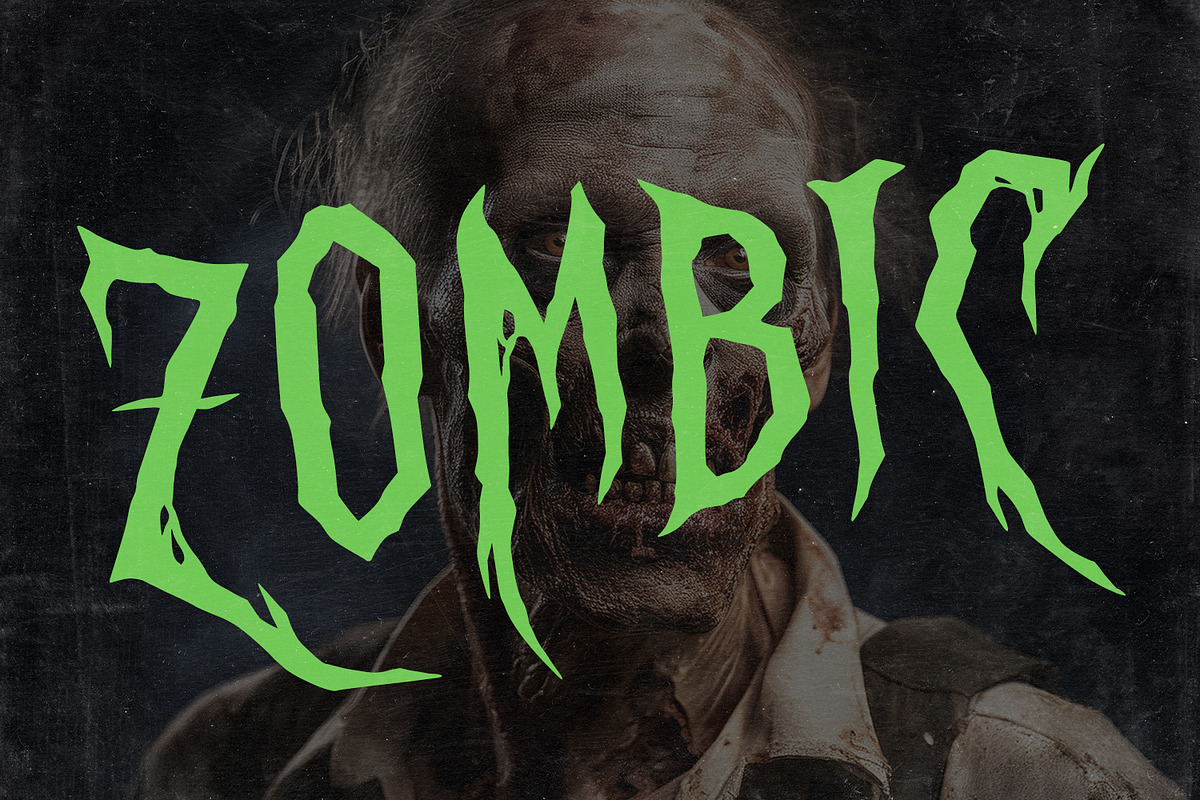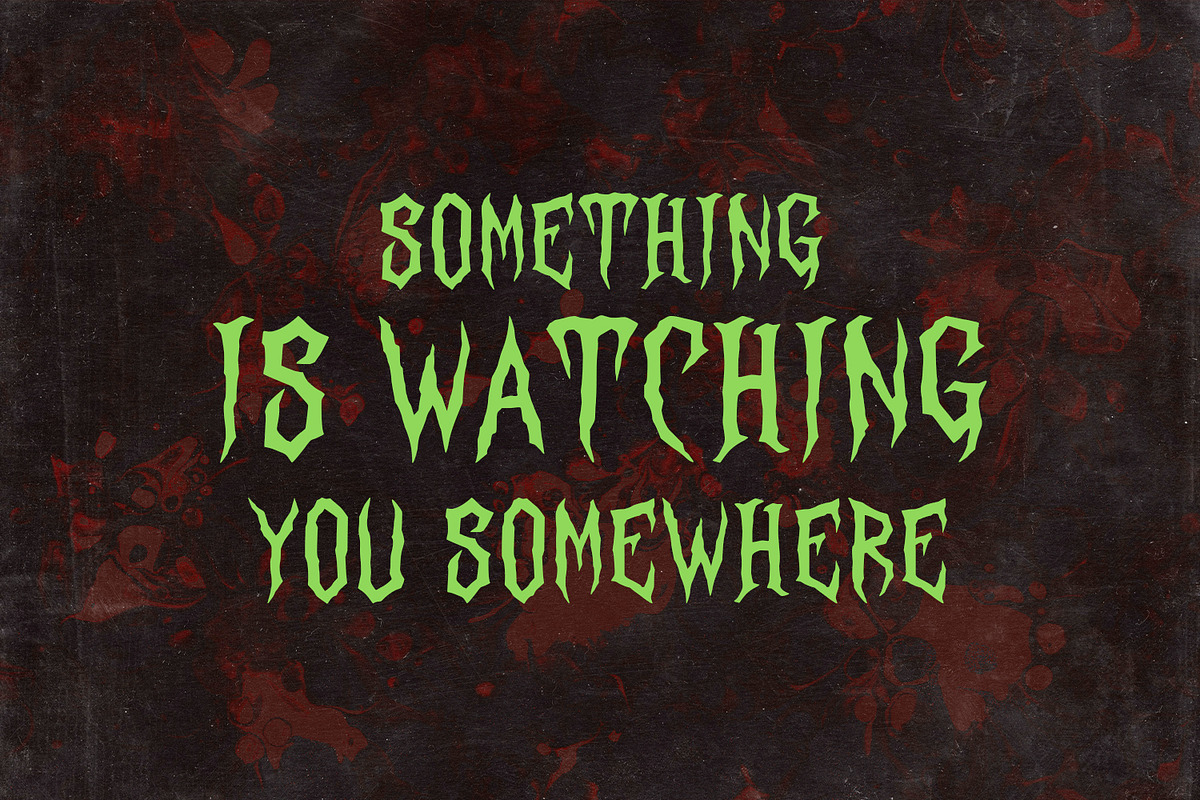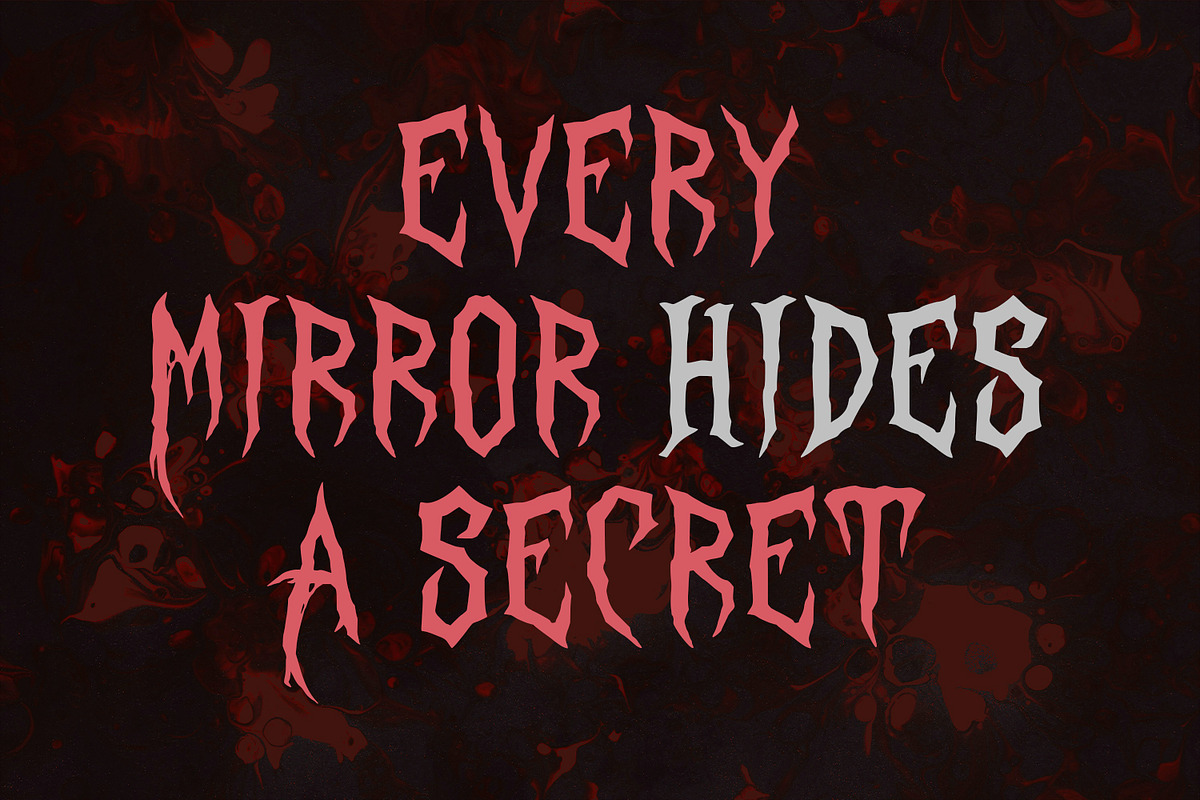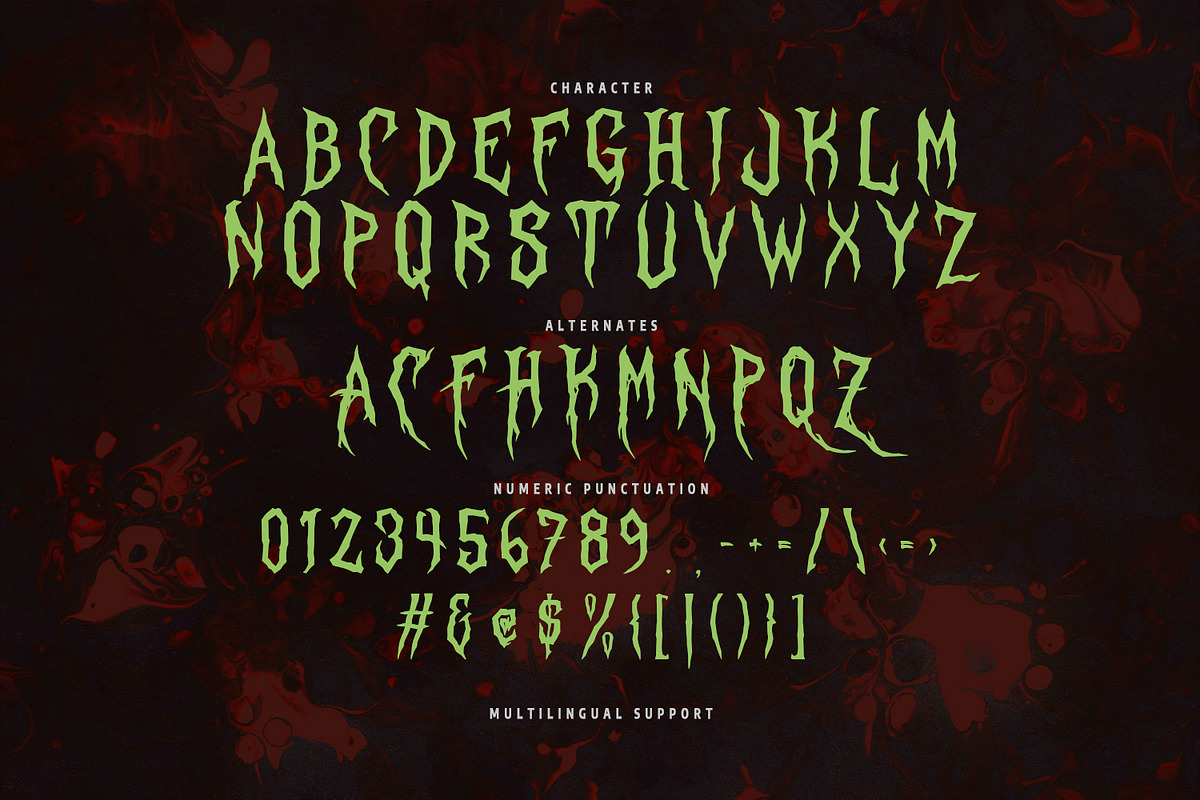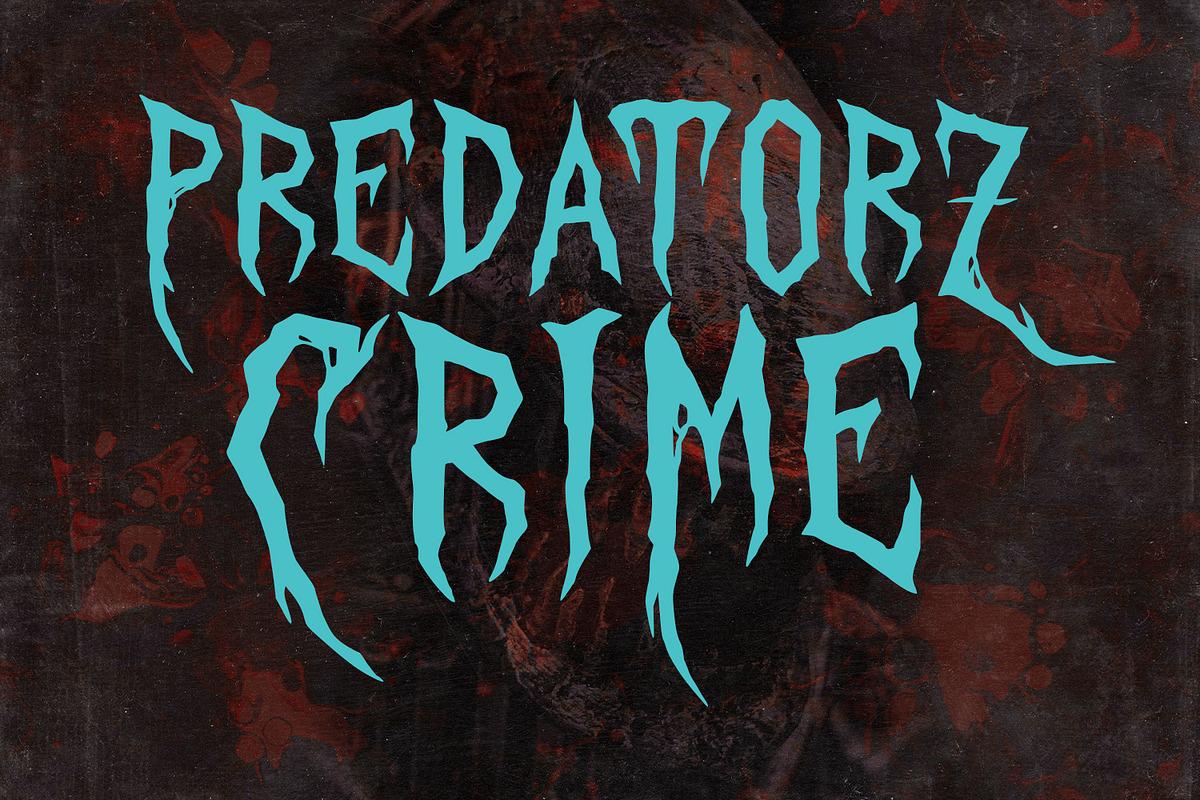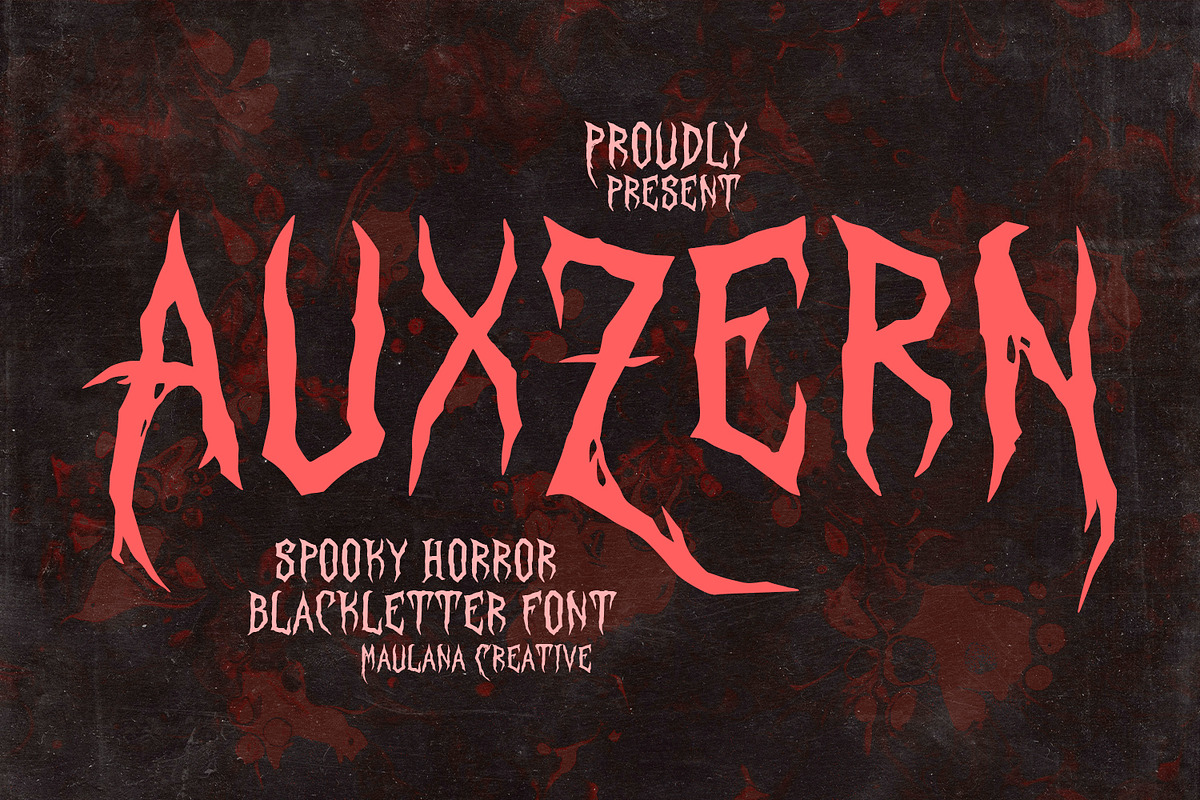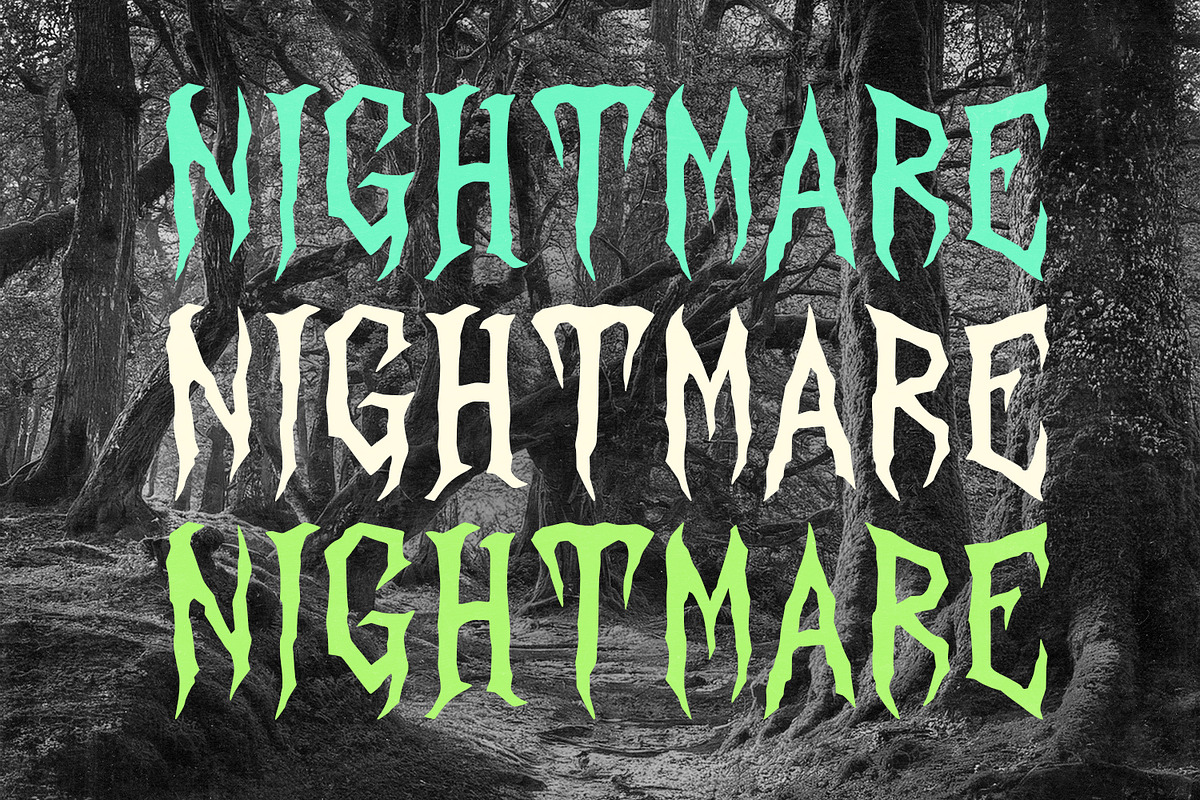
Auxzern Spooky Horror Blackletter
Unleash the darkness with Auxzern, a spine chilling blackletter font designed to bring your most terrifying visions to life. Featuring sharp, jagged edges and a distorted, aggressive silhouette, this font captures the raw energy of classic horror cinema and dark metal aesthetics.
Whether you are designing a movie, a death metal album, or spooky Halloween branding, Auxzern provides a unique, handcrafted feel that demands attention. The set includes a full range of uppercase characters, numerals, and punctuation, along with spooky alternates to give your typography a truly chaotic and supernatural edge.
- Full character set
- Numbers, Punctuation, and Symbols
- Alternates for a natural handwriting flow